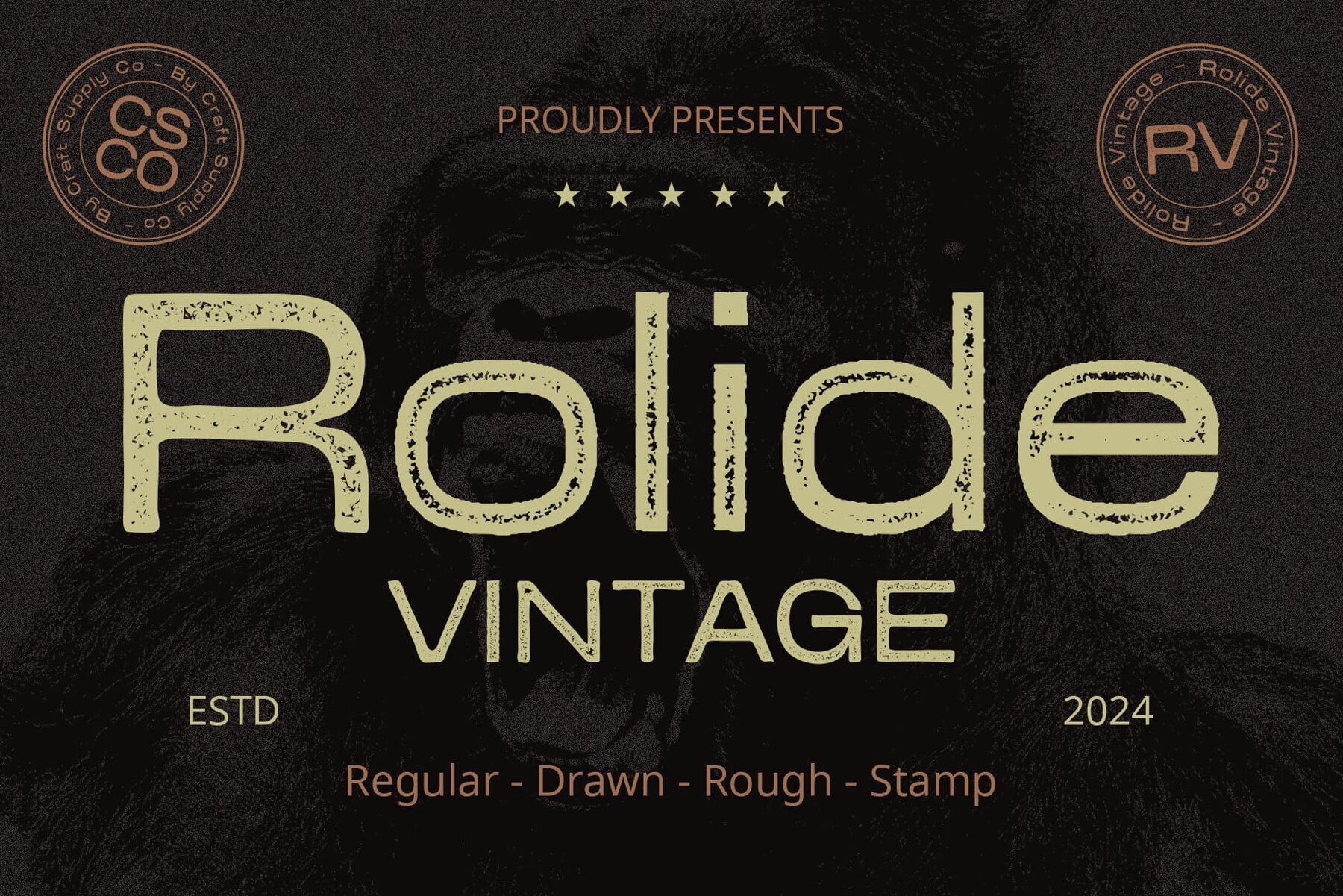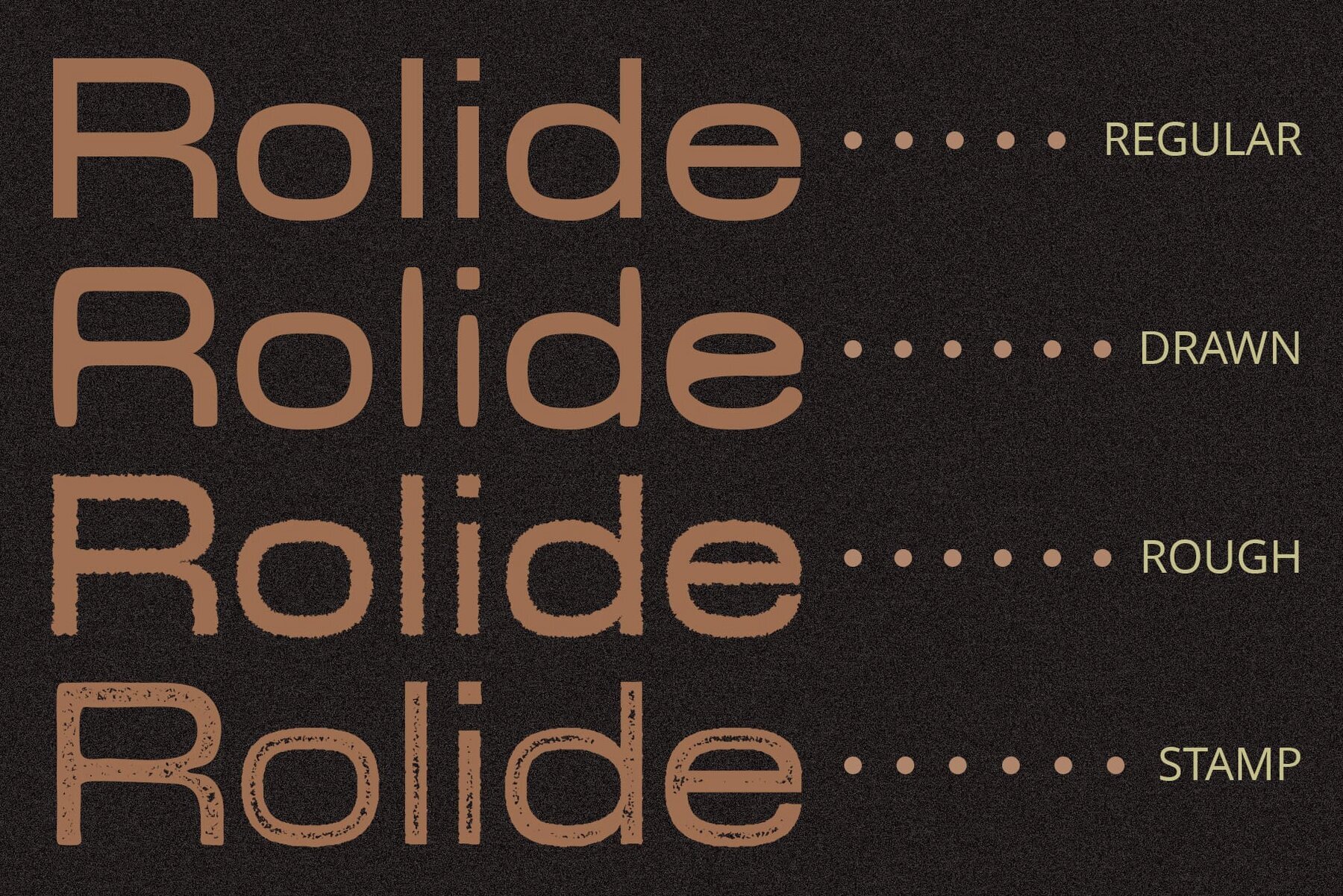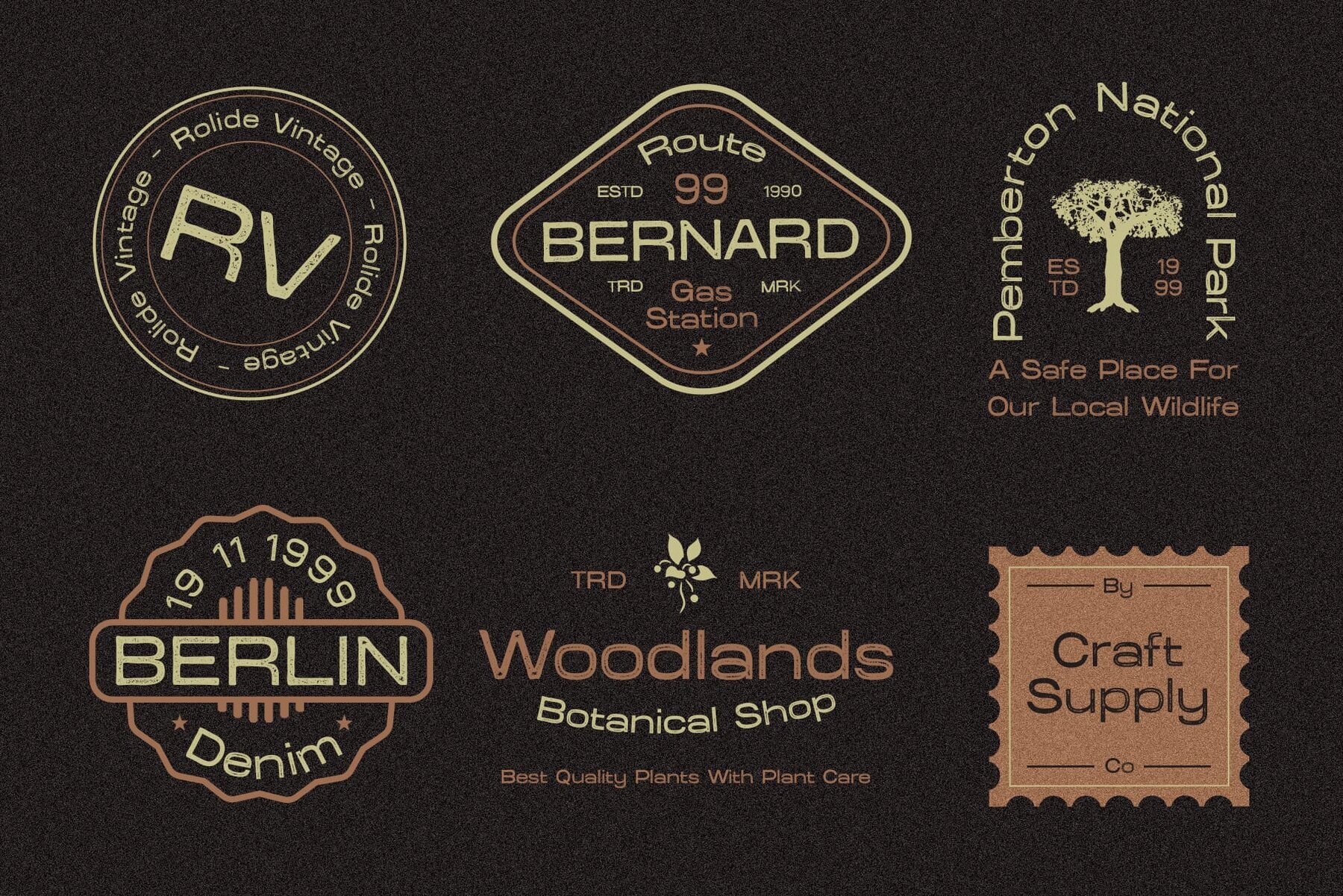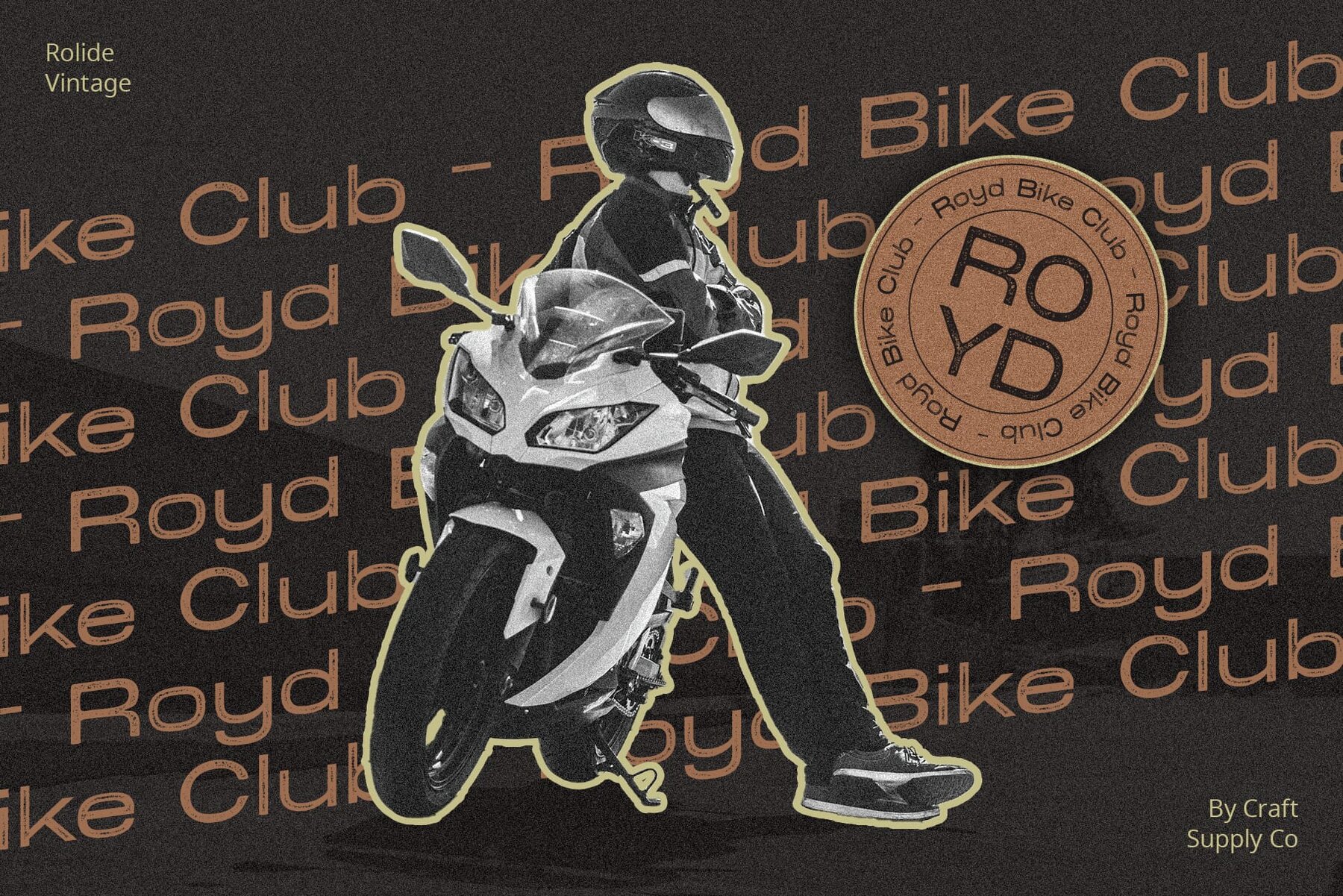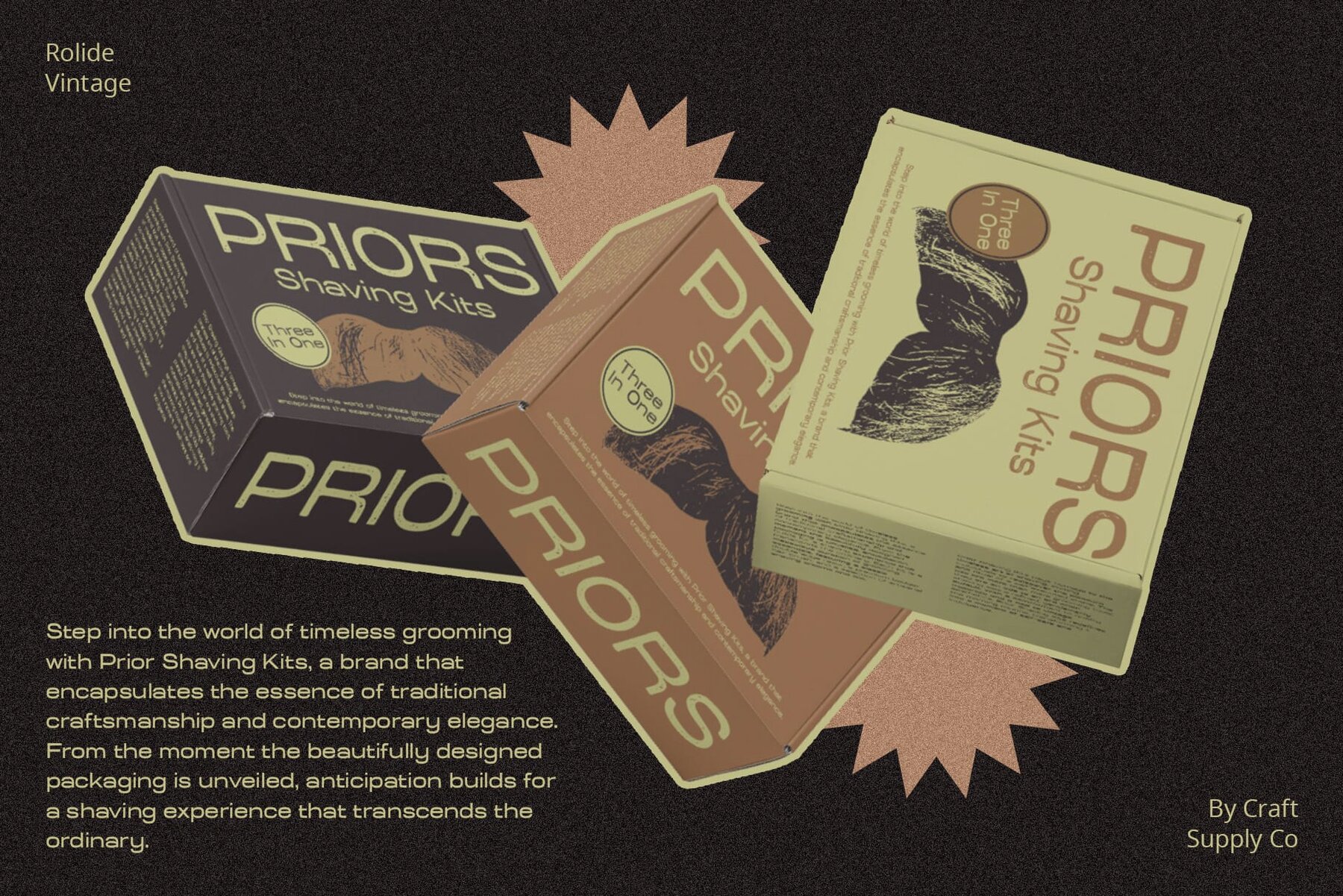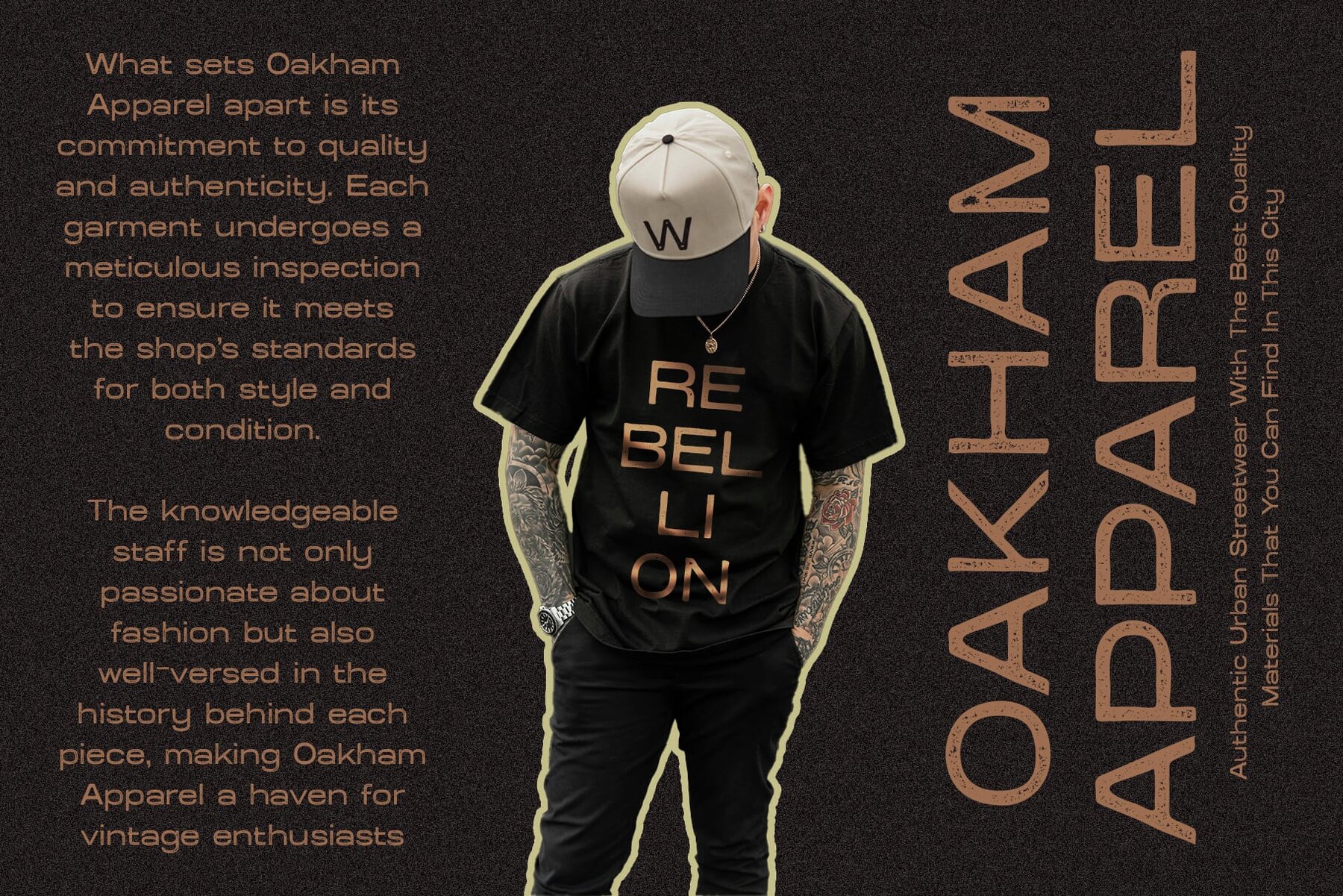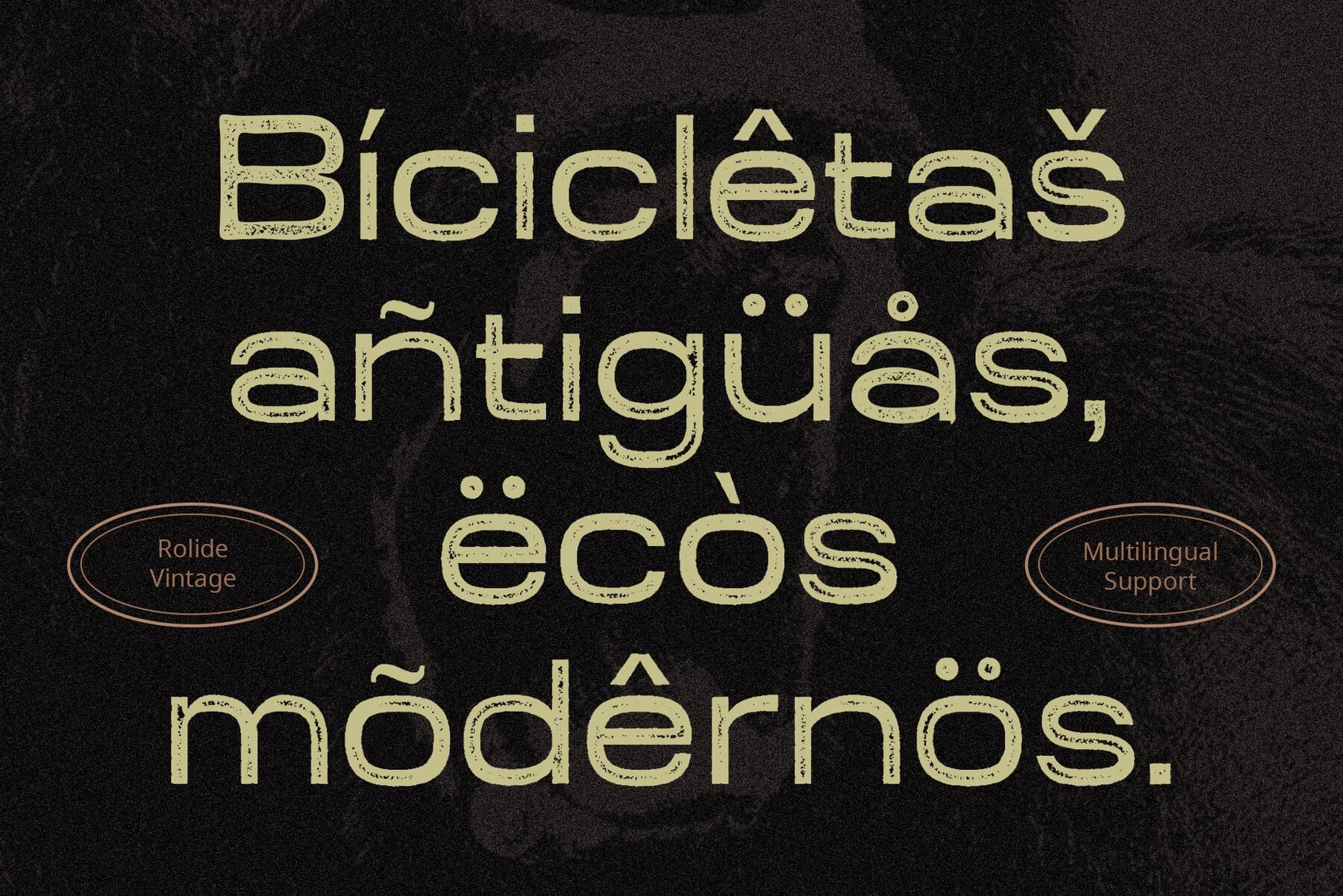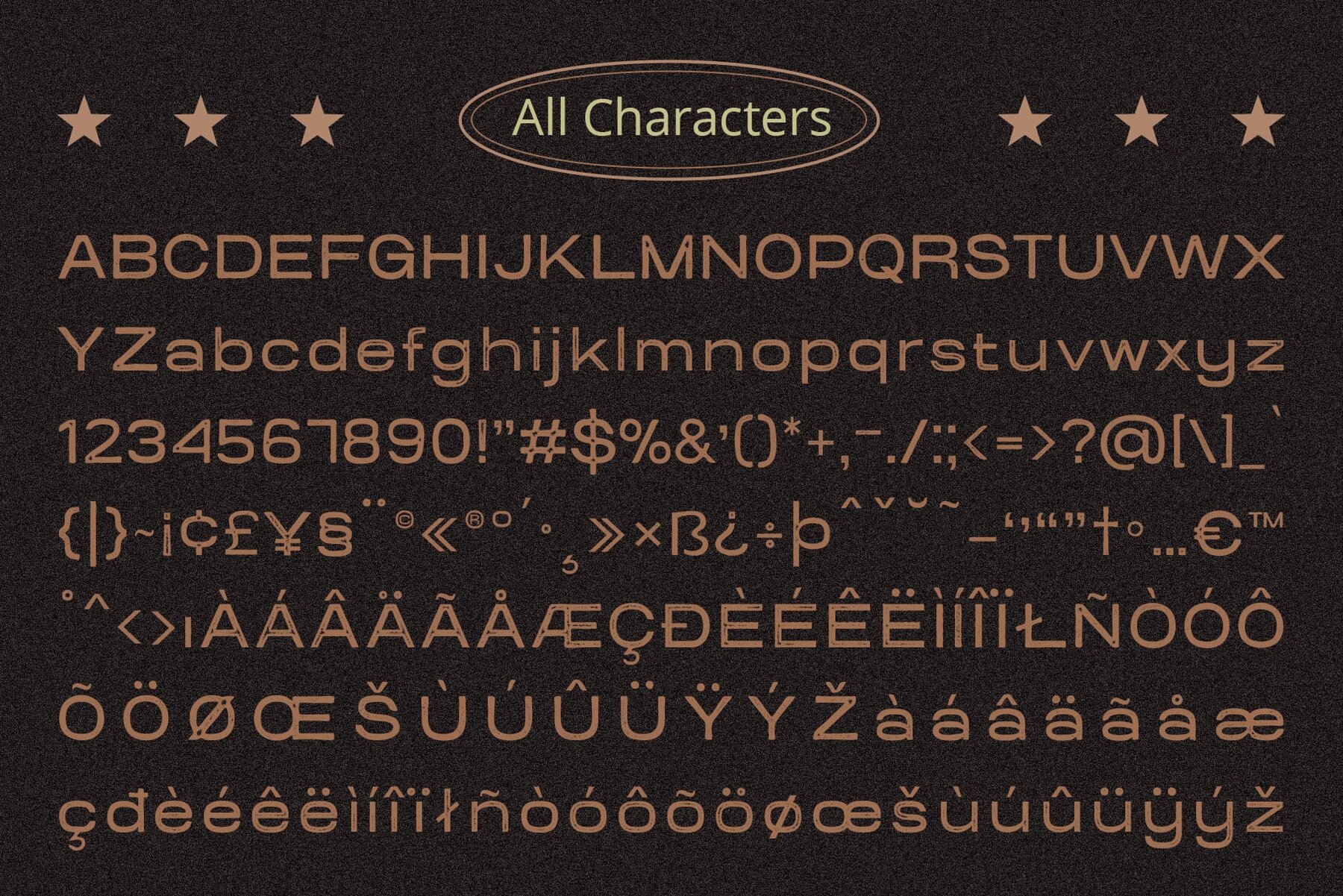
Rolide Vintage Font
Rolide Vintage by Craft Supply Co. is a distinct typeface that commands attention with its bold, boxy, and wide sans serif design. Ideal for making a statement, this font is perfect for any display setting. The font features vintage rough effects that add a touch of authenticity and character. These textured elements bring depth and personality to each letter, enhancing the overall visual impact. Rolide Vintage is more than just a font; it's a dynamic display font designed to capture attention. Its boldness combined with vintage elements ensures it leaves a lasting impression on viewers. Whether it's for posters, packaging, or any creative project in between, Rolide Vintage is versatile enough to elevate your design. Its distinctive appearance ensures it captivates any audience. This font epitomizes the perfect mix of boldness and vintage appeal. With its boxy, wide sans serif design and vintage rough effects, Rolide Vintage is ideal for display purposes. Be it branding, advertising, or any creative endeavor, this font is bound to make a memorable impression. No specialized software is needed to utilize this typeface. For any inquiries or assistance, please feel free to get in touch. Your support in making your creative projects shine is appreciated!Rolide Vintage: Boxy and Wide Sans Serif with Vintage Charm
Vintage Rough Effects
Eye-Catching Display Font
Versatile Usage
Ultimate Blend of Boldness and Vintage Charm